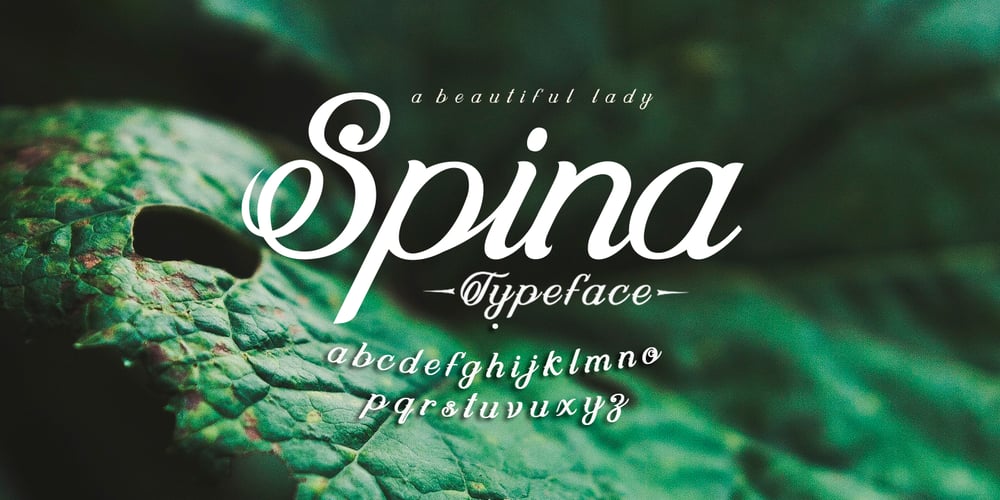
Spina Font Family was designed by Nach Oh! and published by OhType!. Spina contains 1 styles and family package options. The 225 glyphs that make “Spina Typeface” are the result of experience with hundreds of drawings, sketches and digital tests in seeking to achieve a typeface that represents the fluidity of the script and elegance of the modern roman. Thereby, based on this principle and a unique style, an infinitely versatile typeface was designed that evokes both the beauty and finesse of the plant as power its thorns and its deadly poison.